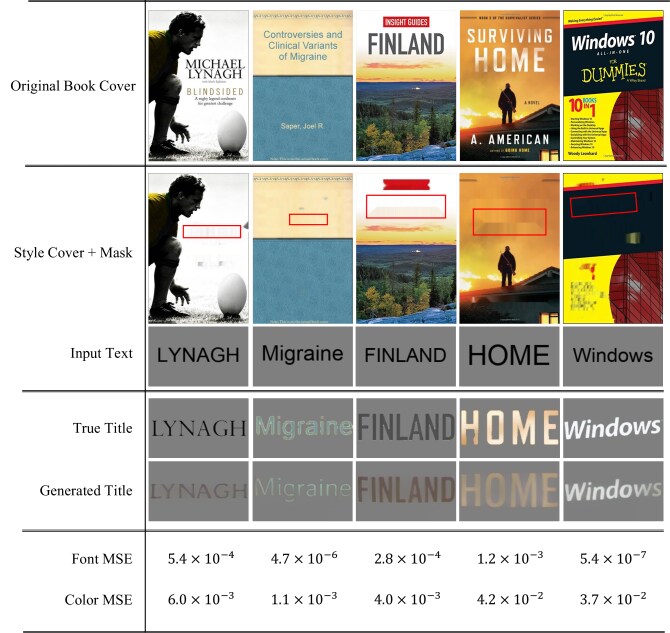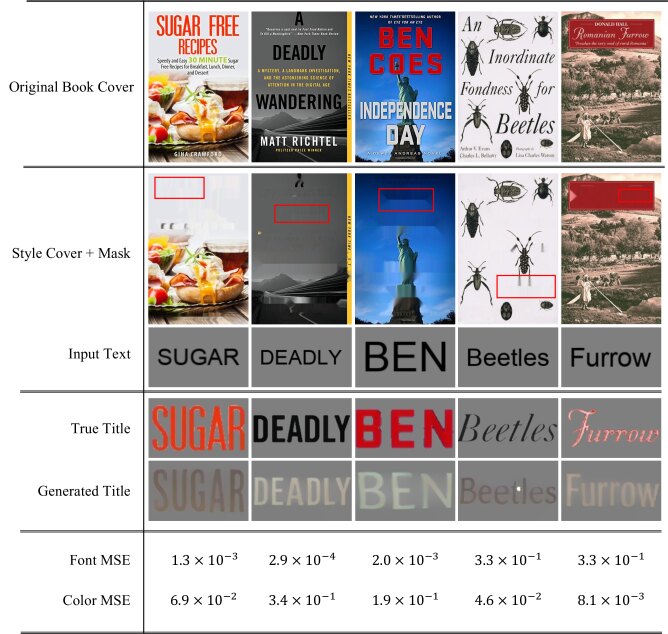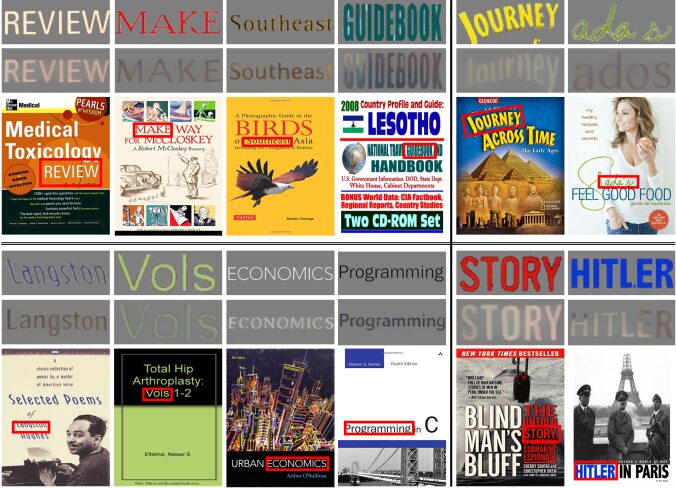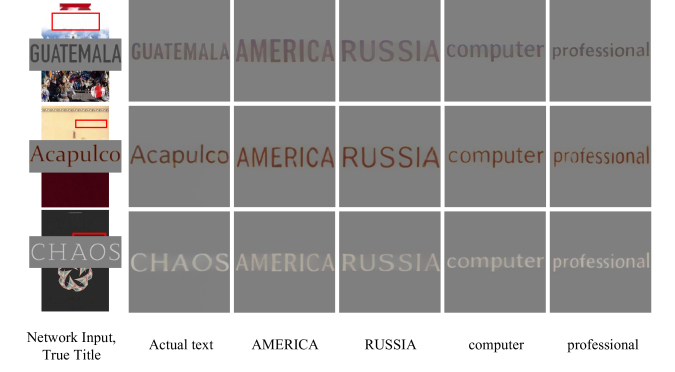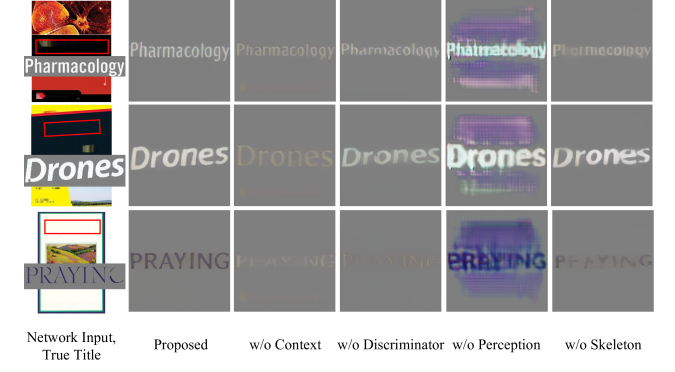
1 Introduction
Fonts come in a wide variety of styles, and they can come with different weights, serifs, decorations, and more. Thus, choosing a font to use in a medium, such as book covers, advertisements, documents, and web pages, is a deliberate process by a designer. For example, when designing a book cover, the title design (i.e., the font style and color for printing the book title) plays an important role [14, 25]. An appropriate title design will depend on visual features (i.e., the appearance of the background design), as well as semantic features of the book (such as the book content, genre, and title texts). As shown in Fig. 2 (a), given a background image for a book cover, typographic experts determine an appropriate title design that fits the background image. In this example, yellow will be avoided for title design to keep the visual contrast from the background; a font style that gives a hard and solid impression may be avoided by considering the impression from the cute rabbit appearance. These decisions about fonts are determined by the image context.
This paper aims to generate an appropriate text image for a given context image to understand their correlation. Specifically, as shown in Fig. 2 (b), we attempt to generate a title image that fits the book cover image by using a neural network model trained by 104,295 of actual book cover samples. If the model can generate a similar title design to the original, the model catches the correlation inside it and shows the existence of the correlation.
Achieving this purpose is meaningful for two reasons. First, its achievement shows the existence of the correlation between design elements through objective analysis with a large amount of evidence. It is often difficult to catch the correlation because the visual and typographic design is performed subjectively with a huge diversity. Thus, the correlation is not only very nonlinear but also very weak. If we prove the correlation between the title design and the book cover image through our analysis, it will be an important step to understand the “theory” behind the typographic designs. Secondly, we can realize a design support system that can suggest an appropriate title design from a given background image. This system will be a great help to non-specialists in typographic design.
In order to learn how to generate a title from a book cover image and text information, we propose an end-to-end neural network that inputs the book cover image, a target location mask, and a desired book title and outputs stylized text. As shown in Fig. 2, the proposed network uses a combination of a Text Encoder, Context Encoder, Skeleton Generator, Text Generator, Perception Network, and Discriminator to generate the text. The Text Encoder and Context Encoders encode the desired text and given book cover context. The Text Generator use skeleton-guided text generation [29] to generate the text, and the Perception Network and adversarial Discriminator refine the results.
The main contributions of this paper are as follows:
-
We propose an end-to-end system of generating book title text based on the cover of a book. As far as we know, this paper presents the first attempt to generate text based on the context information of book covers.
-
A novel neural network is proposed, which includes a skeleton-based multi-task and multi-input encoder-decoder, a perception network, and an adversarial network.
-
Through qualitative and quantitative results, we demonstrate that the proposed method can effectively generate text suitable given the context information.
2 Related Work
Recently, font style transfer using neural networks [1] has become a growing field. In general, there are three approaches toward neural font style transfer, GAN-based methods, encoder-decoder methods, and NST-based methods. A GAN-based method for font style transfer uses a conditional GAN (cGAN). For example, Azadi et al. [2] used a stacked cGAN to generate isolated characters with a consistent style learned from a few examples. A similar approach was taken for Chinese characters in a radical extraction-based GAN with a multi-level discriminator [10] and with a multitask GAN [28]. Few-shot font style transfer with encoder-decoder networks have also been performed [33]. Wu et al. [29] used a multitask encoder-decoder to generate stylized text using text skeletons. Wang et al. [26] use an encoder-decoder network to identify text decorations for style transfer. In Lyu et al. [18]
an autoencoder guided GAN was used to generate isolated Chinese characters with a given style. There also have been a few attempts at using NST
[6] to perform font style transfer between text [1, 7, 21, 24].An alternative to text-to-text neural font style transfer, there have been attempts to transfer styles from arbitrary images and patterns. For example, Atarsaikhan et al. [1]
proposed using a distance-based loss function to transfer patterns to regions localized to text regions. There are also a few works that use context information to generate text. Zhao et al.
[32] predicted fonts for web pages using a combination of attributes, HTML tags, and images of the web pages. This is similar to the proposed method in that the context of the text is used to generate the text. Yang et al. [30] stylized synthetic text to become realistic scene text. The difference between the proposed method and these methods is that we propose inferring the font style based on the contents of the desired medium and use it in an end-to-end model to generate text.3 Automatic Title Image Generation
The purpose of this study is to generate an image of the title text with a suitable font and color for a book cover image. Fig. 2 shows the overall architecture of the proposed method. The network consists of 6 modules: Text Encoder, Context Encoder, Text Generator, Skeleton Generator, Perception Network, and Discriminator. The Text Encoder and Context Encoder extracts text and styles from the input text and style cover. The Generator generates the stylized text suitable for the book cover input, and the Skeleton Generator creates a text skeleton to guide the Generator. The Perception Network and Discriminator help refine the output of the Text Generator.
3.1 Text Encoder
The Text Encoder module extracts character shape features from an image of the input text. These features are used by the Text Generator and the Skeleton Generator to generate their respective tasks. As shown in Fig. 3, the Text Encoder input is an image of the target text rendered on a background with a fixed pixel value.